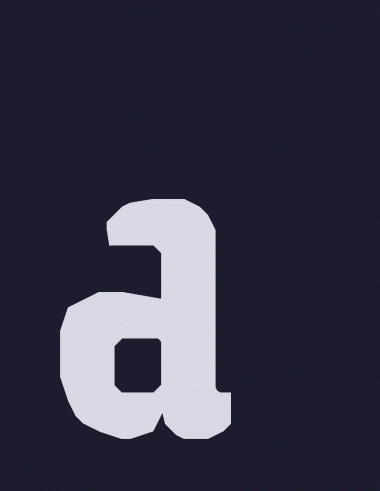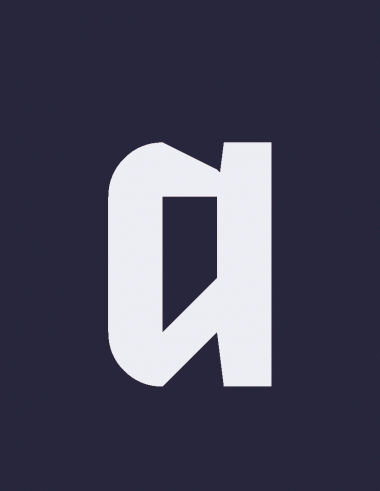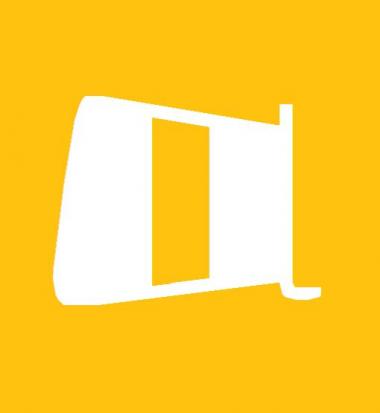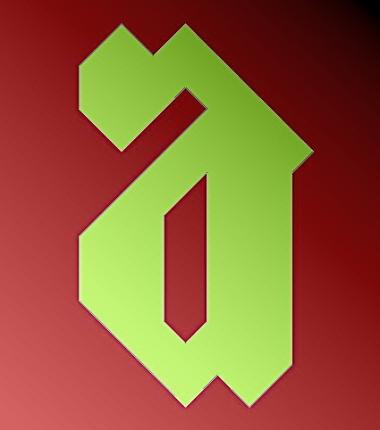
Welcome to the very first FontOut!
This FontOut:
28 May 2012:
Create the most beautiful lowercase a you can. The character must be made with FontStruct. Please upload sample pictures to this discussion.
Let's see what our FontStruct community can do!
One of my most intricate "a" ever
Can I make just a single "a" without using a specific font I made??
@ architaraz, u126, Abneurone, 3moDuDe // Excellent contributions!
A one-storey a. It's "italic".
Welp.
(In case you haven't noticed, I'm not very good at choosing colors)
People, let me ask smth. The questions goes to everybody but AFT.
Why do you try creating glyphs in FS that look like they should've been created with another software? I mean, isn't it easier to use professional software like illustrator, fontcreator etc for creating this kind of glyphs? Why bother using bezier angles in FS?
@Architaraz : AMEN!
@architaraz // Can't we do what we want? Also, some of us don't have or even can't afford pro software, which is why the rules say it must be created with FontStruct, in order to give no advantage to any FSor.
Also, some people find it more aesthetic to use a certain method of creating fonts. I gotta say, though, your minimalist beauty of a letter hits home with me! :-)
@Abneurone // Love that last sample!
Hmmm. Like what demonics said I can't afford pro software (I'm still a high school student!), and I guess to a certain extent FS is more intuitive than most pro software which use actual Bezier curves. Modular construction also has a different flavour from actual curved shapes and provides a wonky angular characteristic that is distinctly FS :3 I also enjoy the fact that such fonts have different effects at different scales. Of course another thing is the awesum community here that provides feedback and suggestions which would probably be less feasible with fonts made with pro software.
Here's my recent a.
a tasbaqa was actually based on a small a. It means turtle, and four a's in a title stand for four turtle ninja characters.
As one who frequently attempts to achieve faux-bezier curves I might as well add my two cents worth here. I may be at the other end of the age spectrum, but my limited pension also means that I can't afford to purchase expensive software.
FS has provided me with the means to enjoy crafting fonts (and even to add a little to my pension through selling them).
It's curious that some people feel the need to constantly snipe at those of us who harmlessly and innocently amuse ourselves here ... just because we do something different to them. I try to embrace the work of all who use this wonderful application ... even those who repeatedly churn out stuff that I neither like nor rate very highly ... I have yet to make a disparaging comment about those who aspire to 'art' rather than 'craft' - and I don't intend to now.